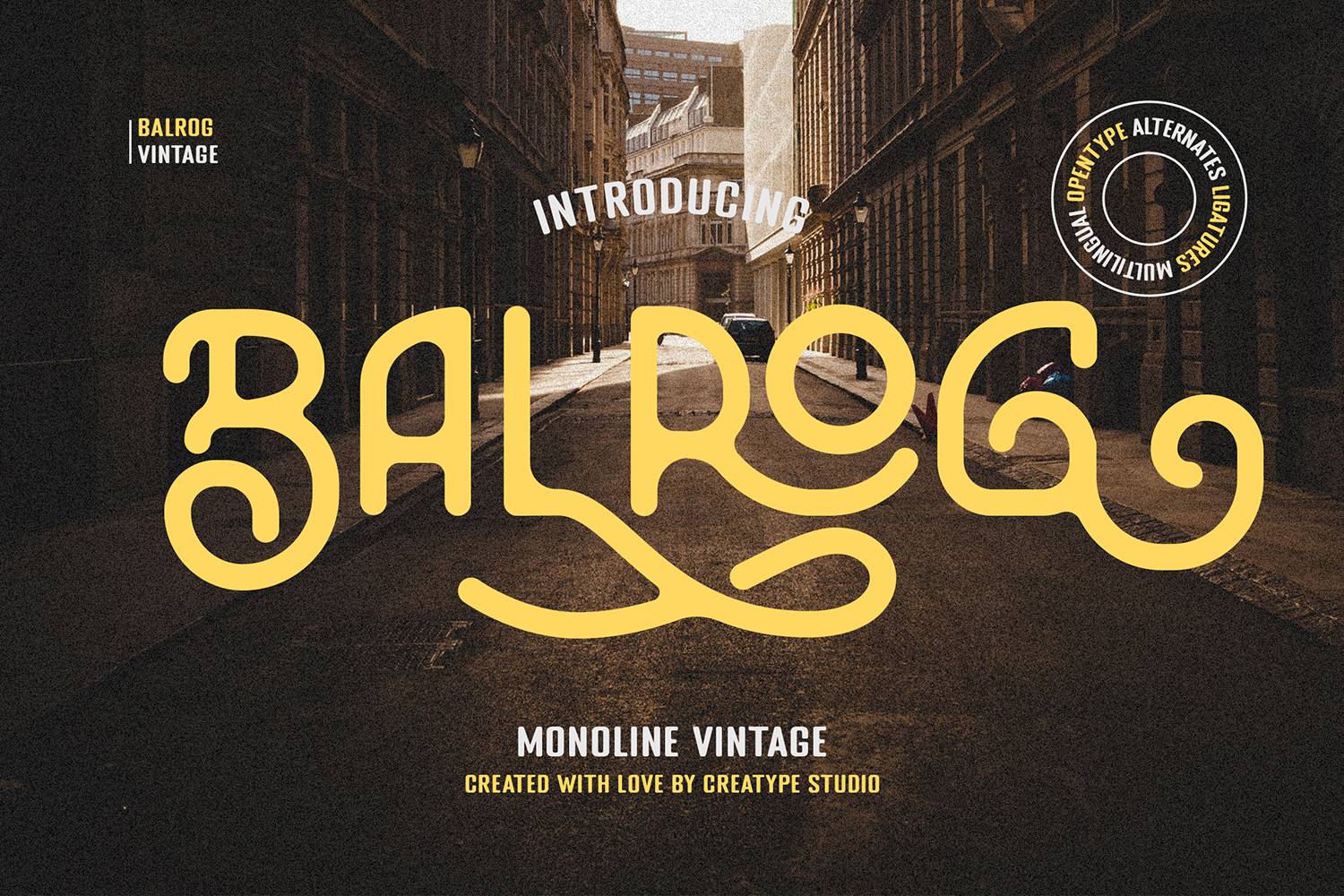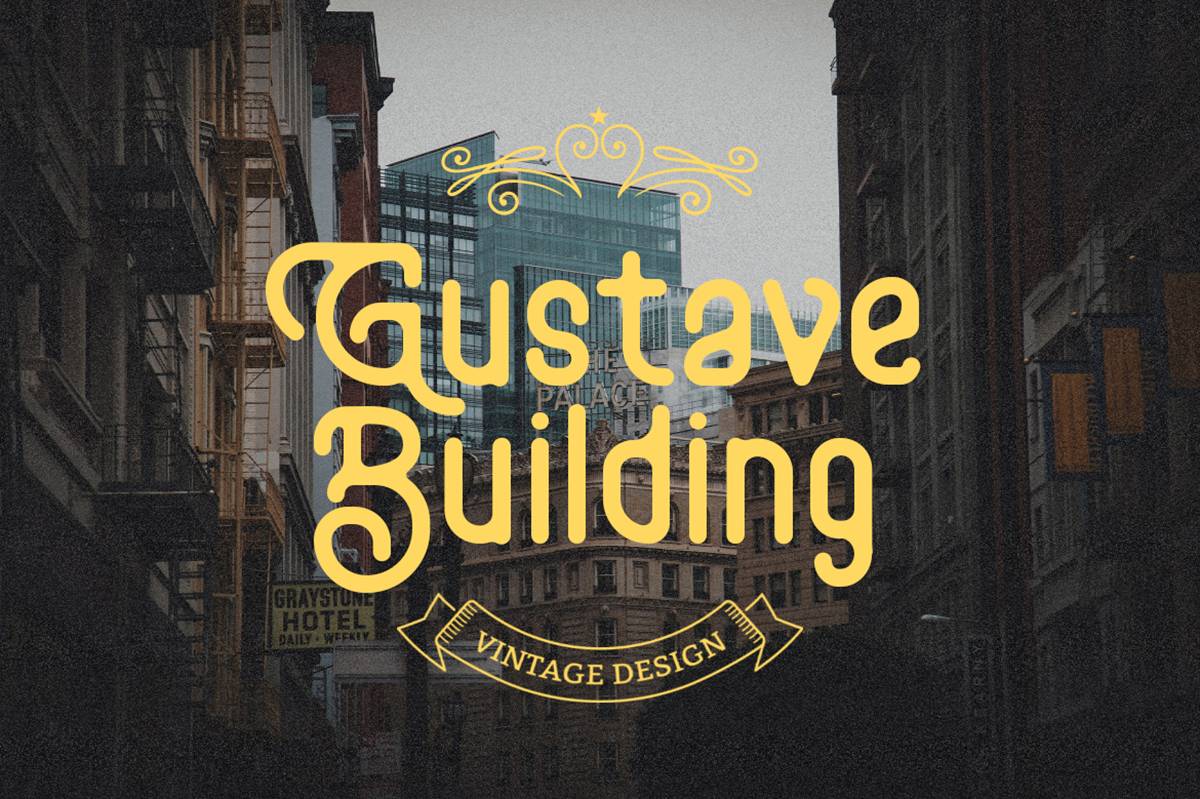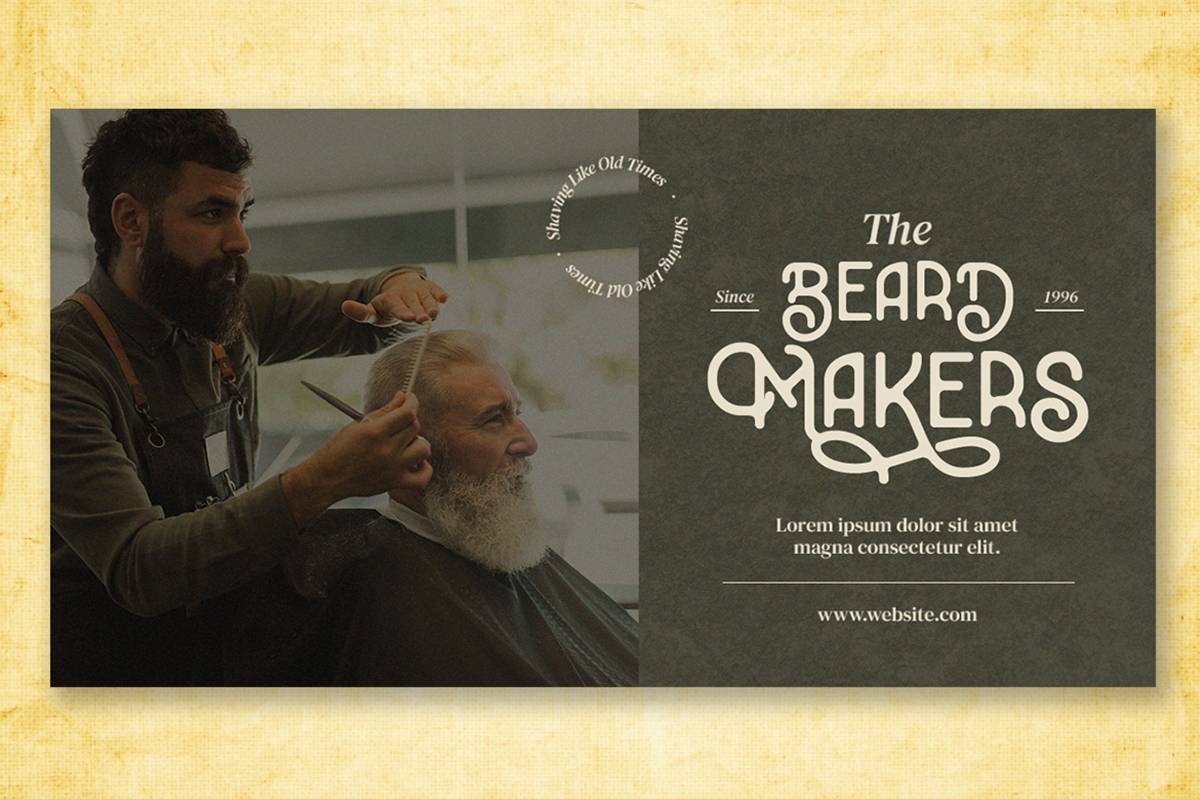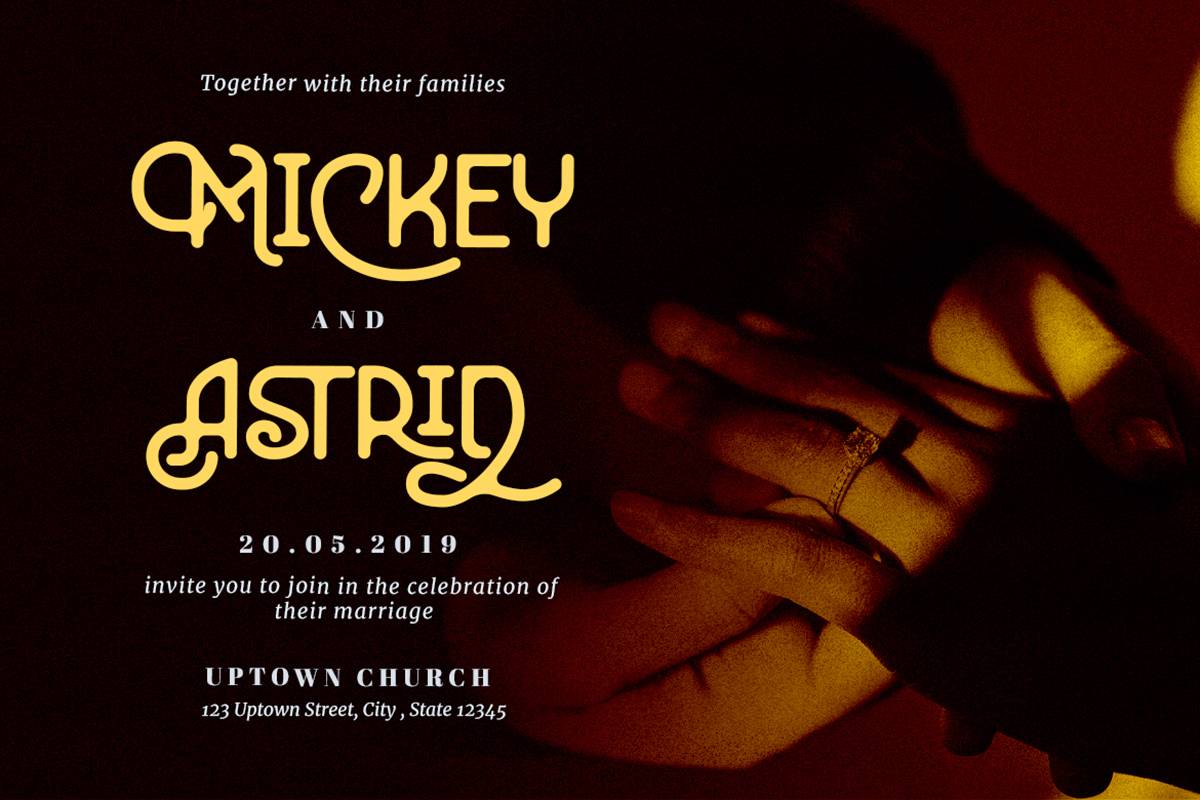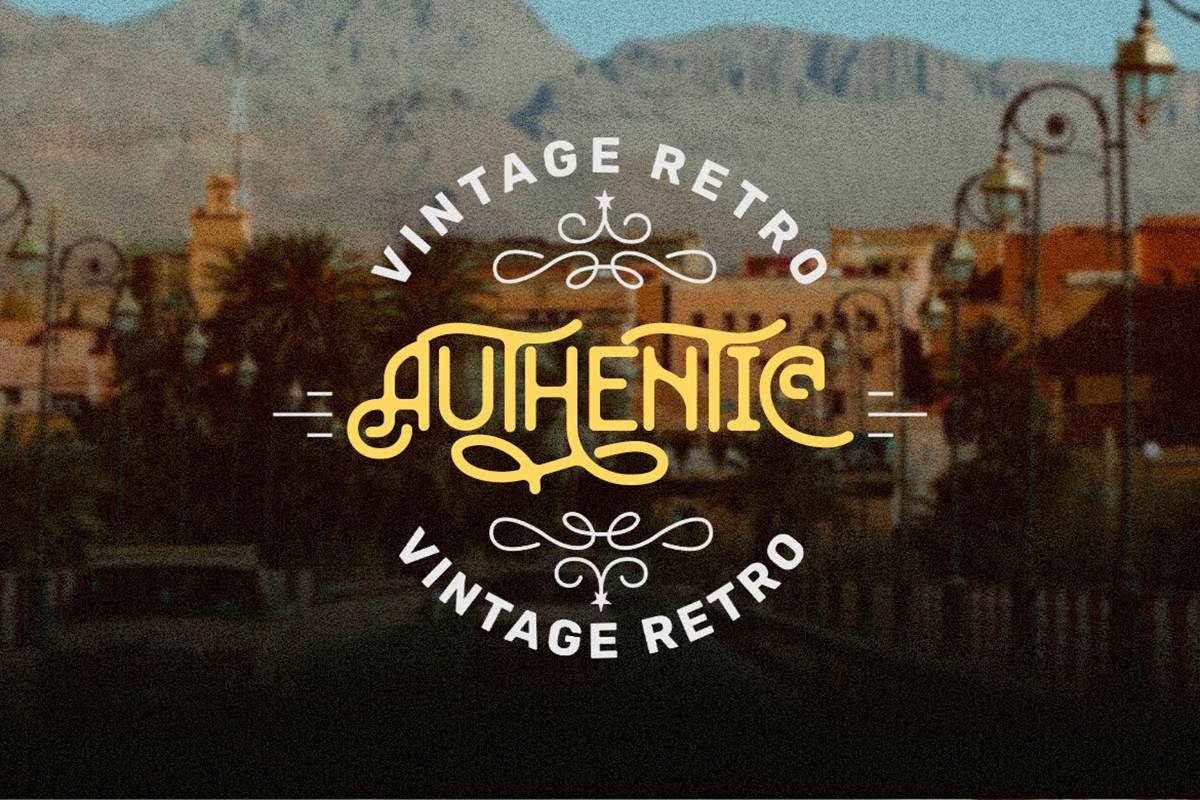
Balrog is a playful and modern sans serif font characterized by its rounded corners and slightly condensed letterforms. Its clean, uniform strokes and quirky details, like the single-story lowercase "a" and distinctive "Q" tail, give it a friendly yet unique personality, ideal for casual branding and creative projects. This font works well for logos, headlines, and packaging where a touch of whimsy and approachability is desired.
Balrog Font
About Balrog Font